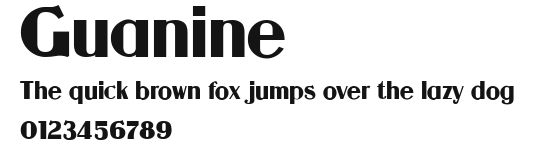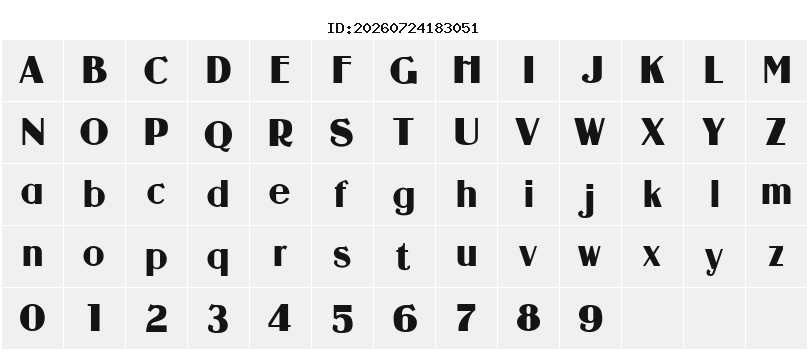
• Font Name: Guanine
About Guanine.ttf
Guanine.ttf is a modern, elegant sans-serif font designed for ultimate readability and visual harmony. Perfect for branding, headlines, web design, and print materials.